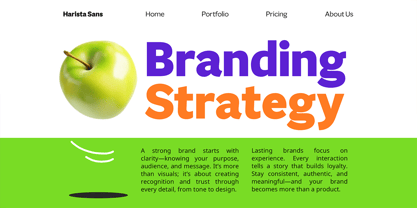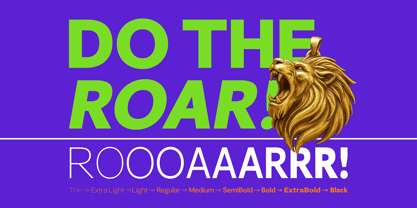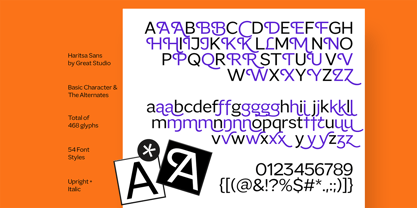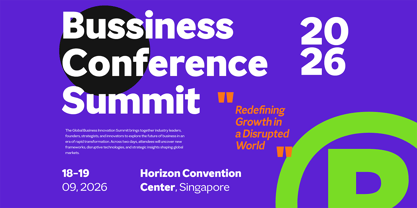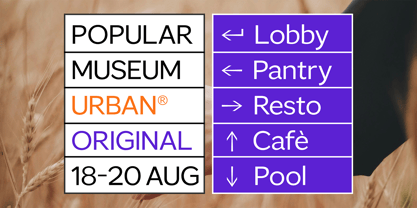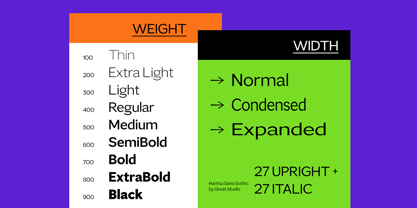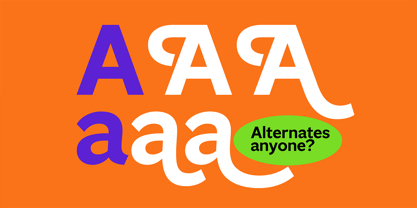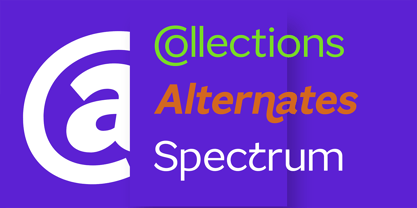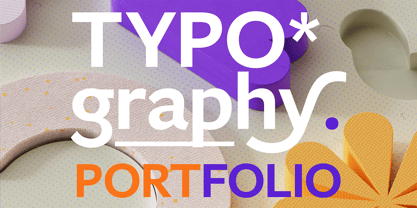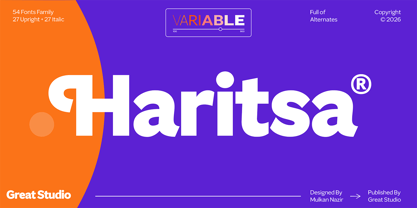
GS Haritsa
by Great Studio
The GS Haritsa Font Family was designed by Mulkan Nazir and published by Great Studio. GS Haritsa contains 55 styles and family package options. More about this family
Haritsa Sans is a modern sans-serif typeface family that prioritizes shape precision, controlled visual contrast, and a strong contemporary character. Every curve and line is crafted with high accuracy, resulting in letterforms that are clean, stable, and highly readable at any size. With an aesthetic that is bold yet refined, Haritsa Sans blends geometric structure with humanist nuances, creating a balance between technical and artistic expression. Its contrast doesn’t rely on extreme weight differences, but rather on the thoughtful play of proportions, angles, and visual rhythm—giving it a modern yet approachable feel. Its Variable Font version provides maximum flexibility for designers—from ultra-thin to super bold—enabling precise visual adjustments for a wide range of needs, including branding, editorial work, UI/UX, and motion graphics. Overall, Haritsa Sans delivers a professional, dynamic, and futuristic impression, making it an ideal choice for projects that demand clarity, strong character, and a touch of contemporary aesthetics.
Designers: Mulkan Nazir
Foundry: Great Studio